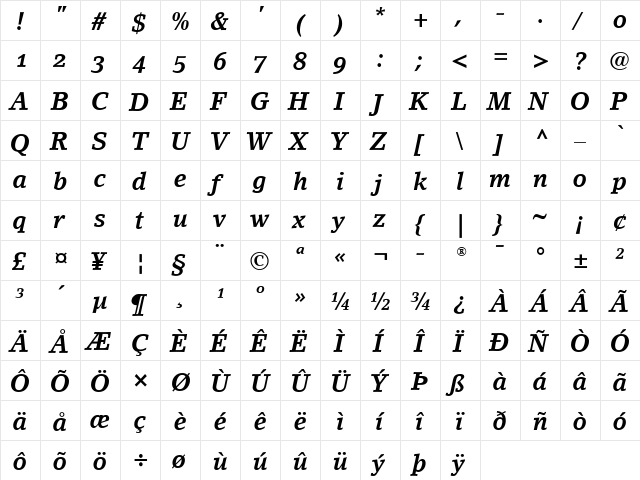
LinoLetter RomanOsF Bold Italic Font Preview
Design Context for LinoLetter RomanOsF Typeface
LinoLetter RomanOsF takes a measured approach to typography — its balanced proportions and neutral character make it a reliable workhorse for both digital and print work. The slanted form adds forward momentum and visual energy. Its bold stroke weight gives it real presence on the page.
Pro Tip: Try LinoLetter RomanOsF for annotation and caption copy alongside an upright companion — the contrast in angle creates a dynamic but ordered typographic system.